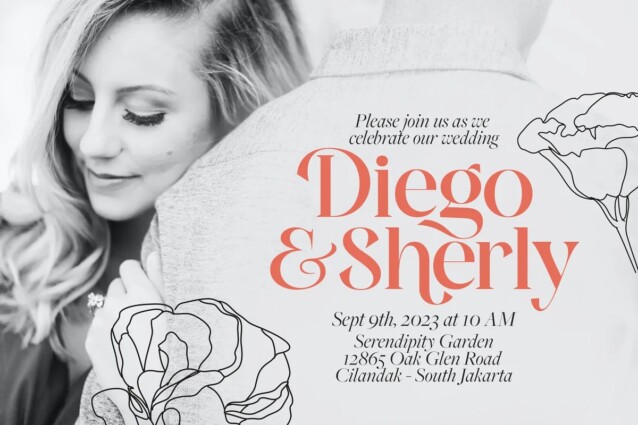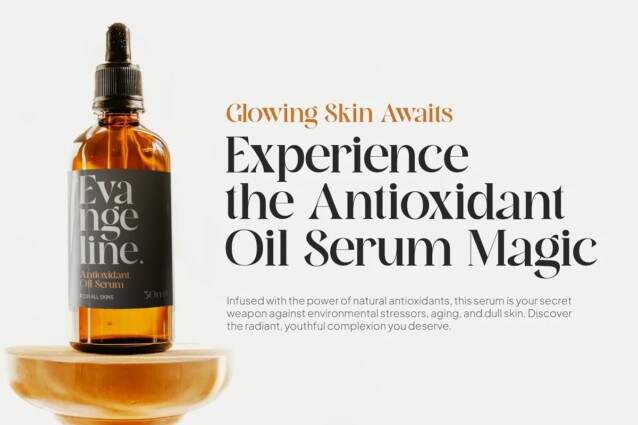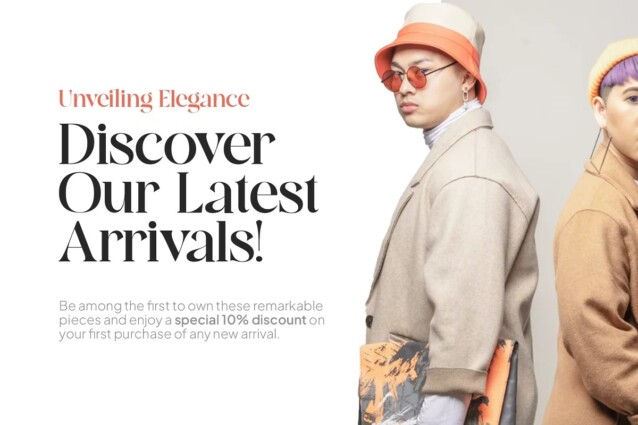
Rosaline Font
Rosaline Font is a typeface yet bold serif font created by Vampstudio with a modern twist, thoughtfully crafted for elegant, contemporary projects. Specially designed by skilled hands makes this font is the perfect fit for all your big projects.
Rosaline is perfect for branding projects, logo, wedding designs, social media posts, advertisements, product packaging, product designs, label, photography, watermark, invitation, stationery and any projects that need handwriting taste.